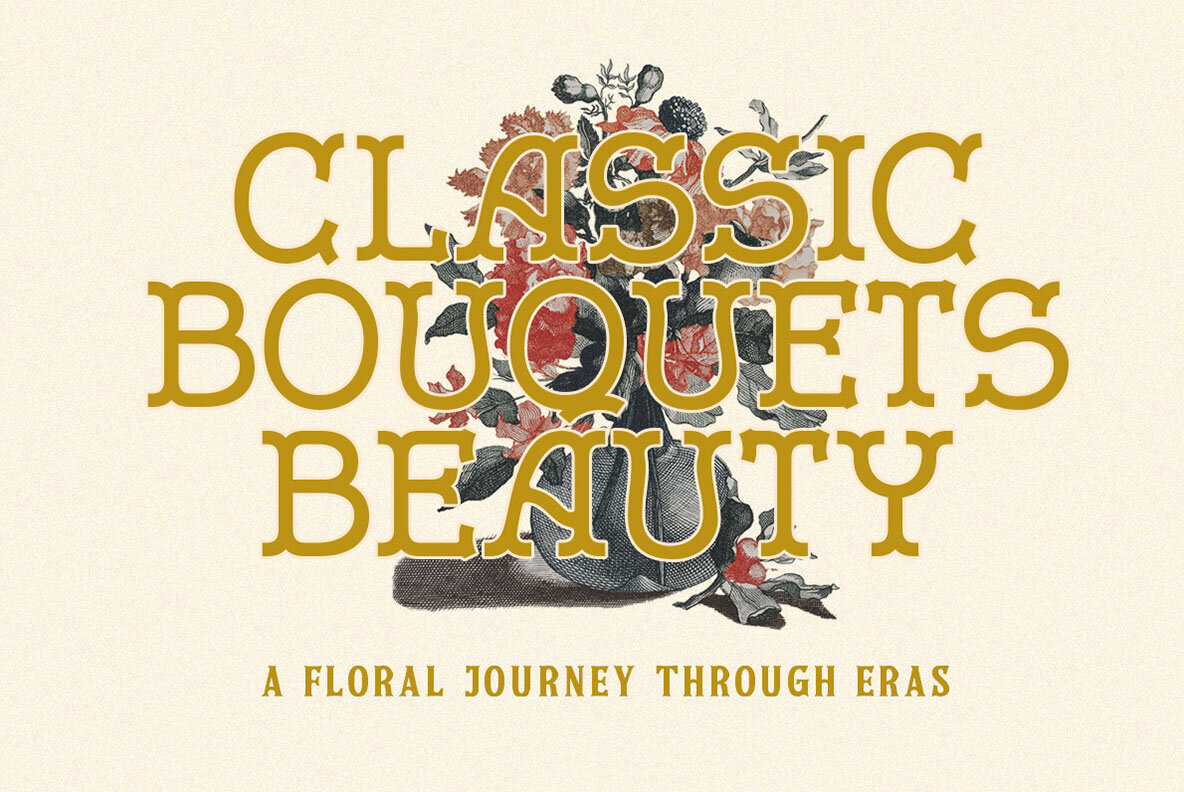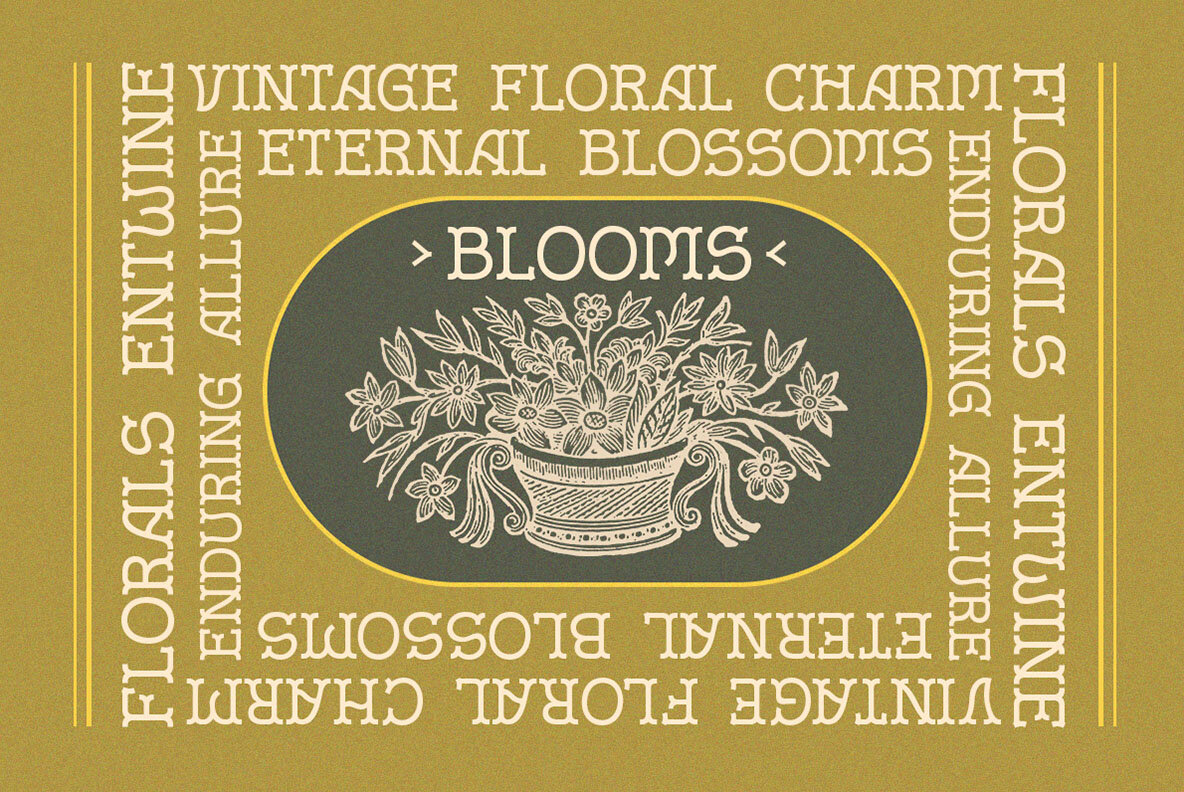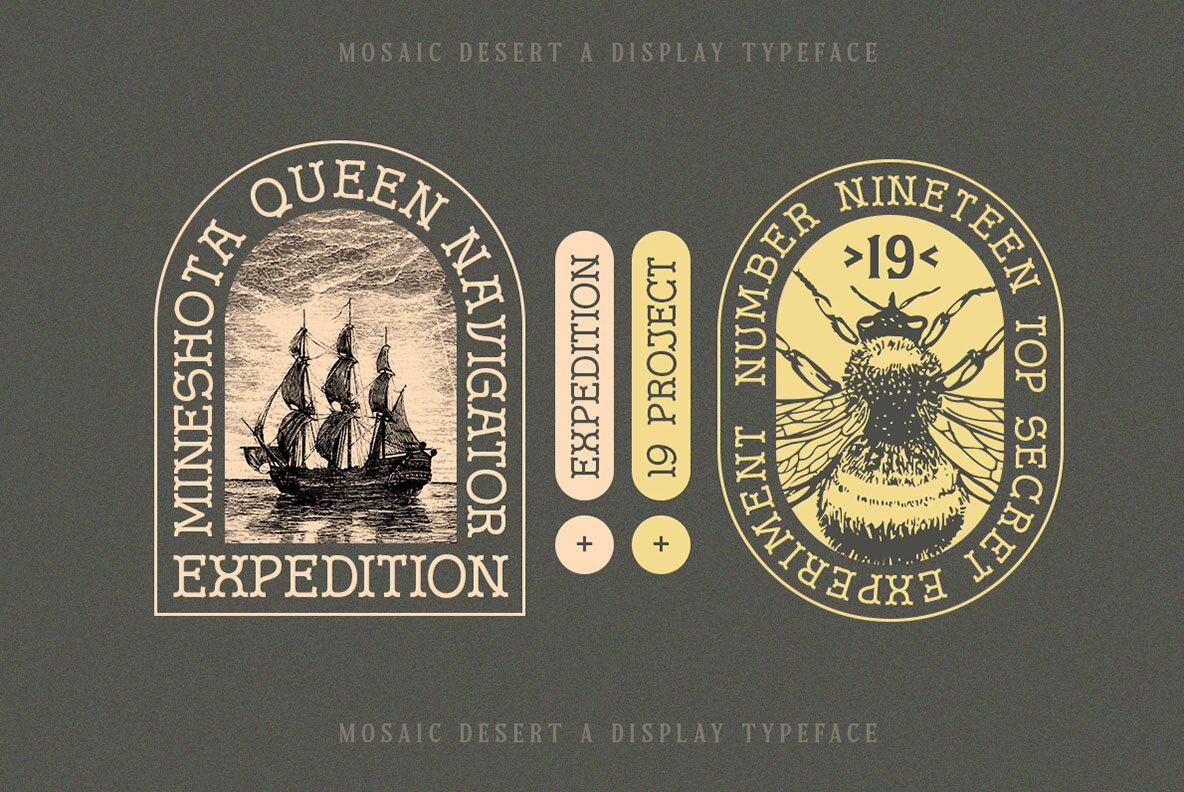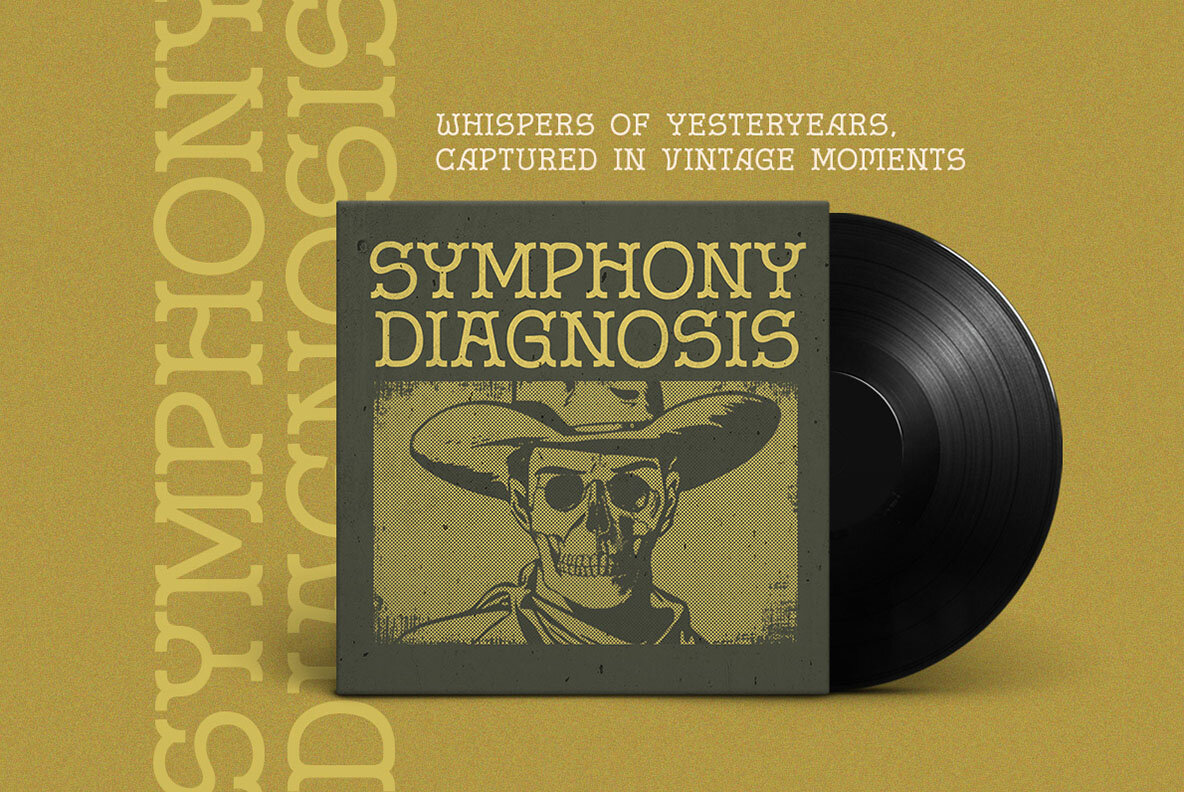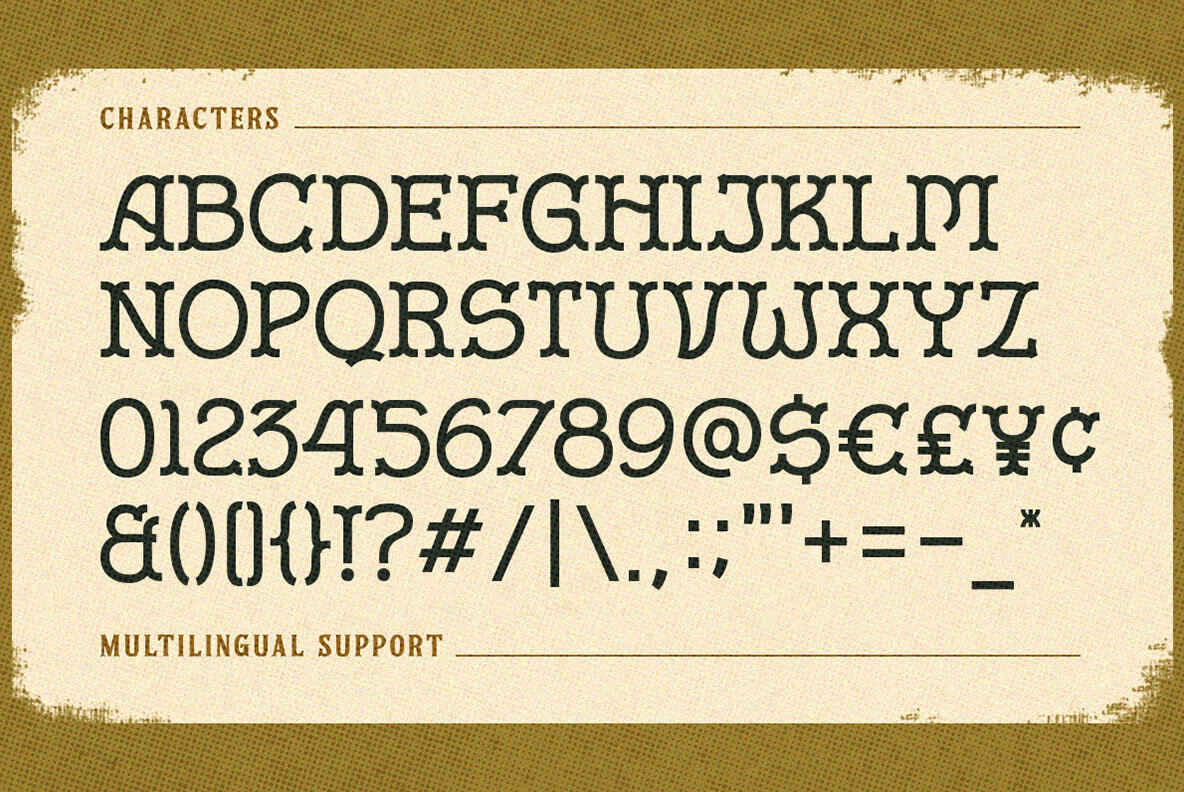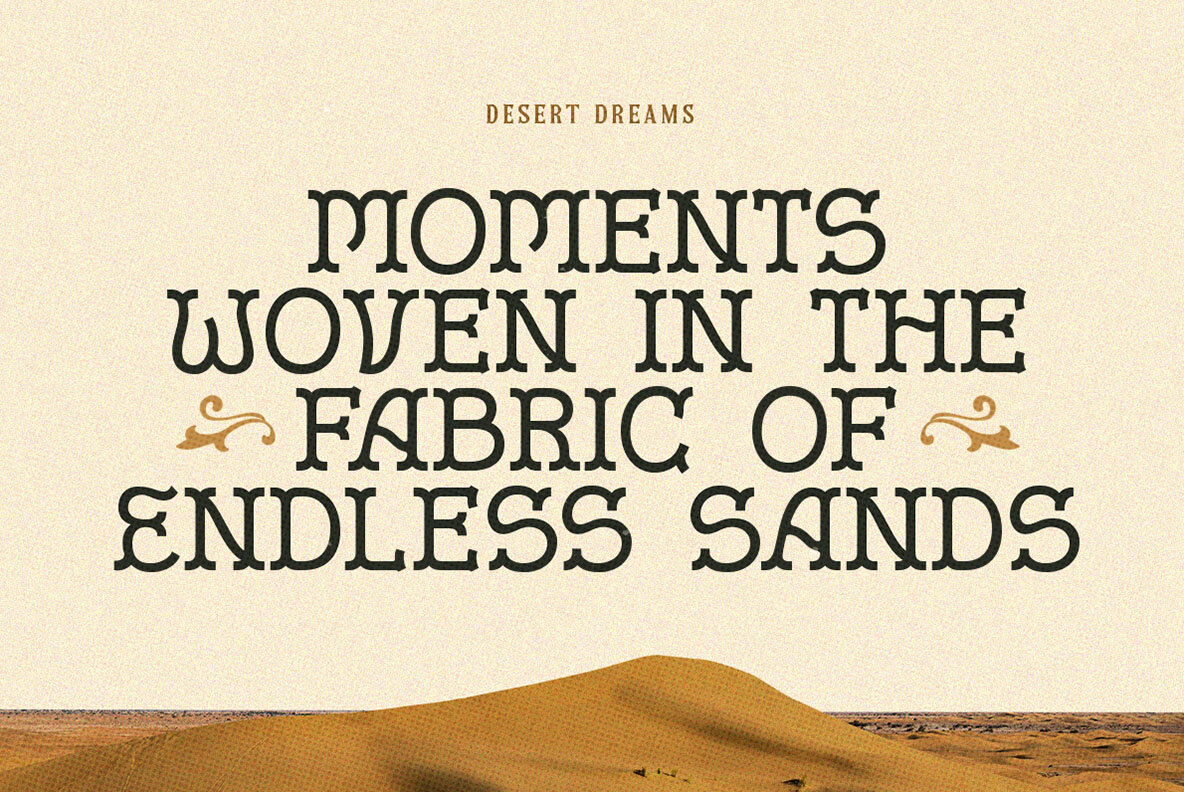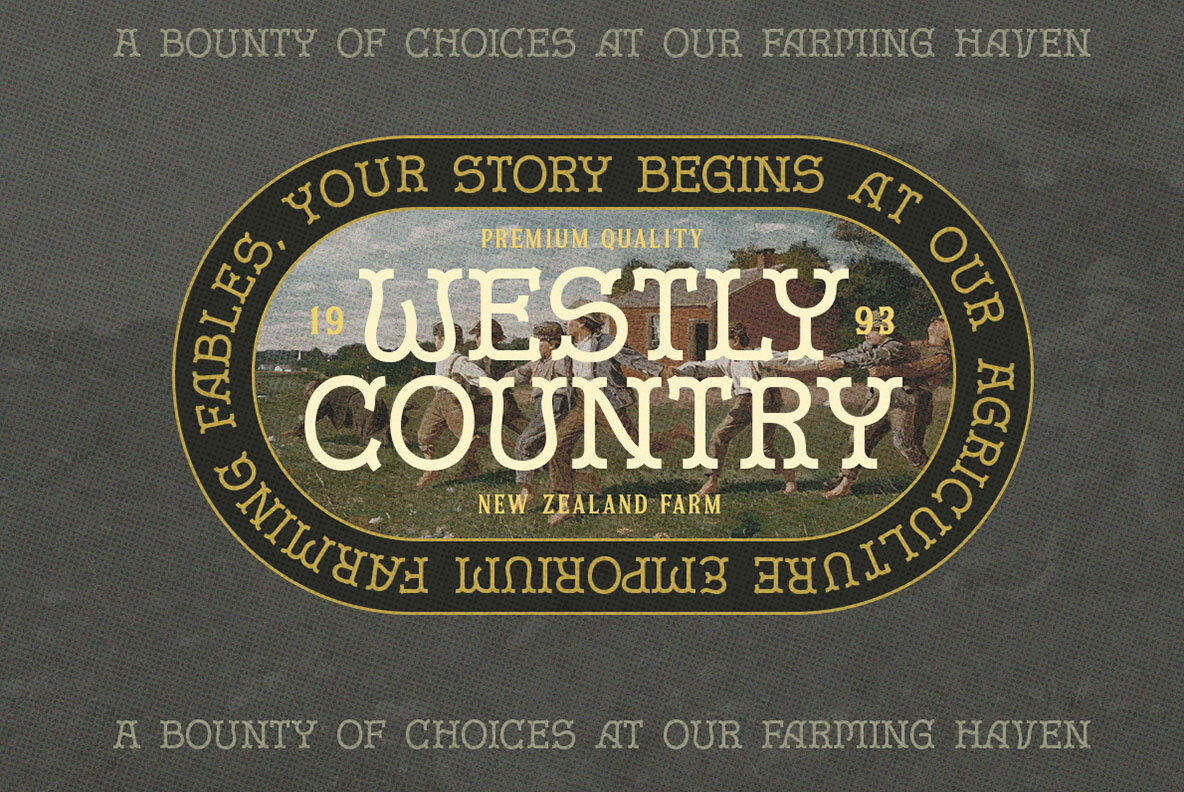
Mosaic Dessert Font
Mosaic Desert Regular
Mosaic Dessert is a classic Wild West style font, ready to rock! Suitable for design needs with a touch of classic western and also suitable to be applied especially in logo, and the other various formal forms such as invitations, labels, logos, magazines, books, greeting / wedding cards, packaging, fashion, make up, stationery, novels, labels or any type of advertising purpose.